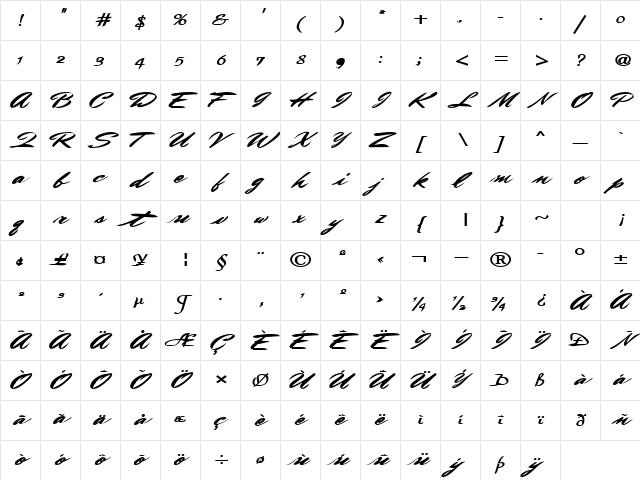
Complete BrushMasterFont12 Regular glyph index. Displaying only characters natively supported by BrushMasterFont12 Regular font.
BrushMasterFont12 flows with the natural rhythm of handwritten lettering, making it ideal for designs that call for warmth and personal expression.
Font Pairing: Combine BrushMasterFont12 with a simple geometric sans for maximum contrast - the tension between flowing curves and clean structure is a classic typographic pairing.
Pro Tip: Use BrushMasterFont12 for short runs of text - names, titles, or taglines. Extended body copy in script faces tires the eye quickly.